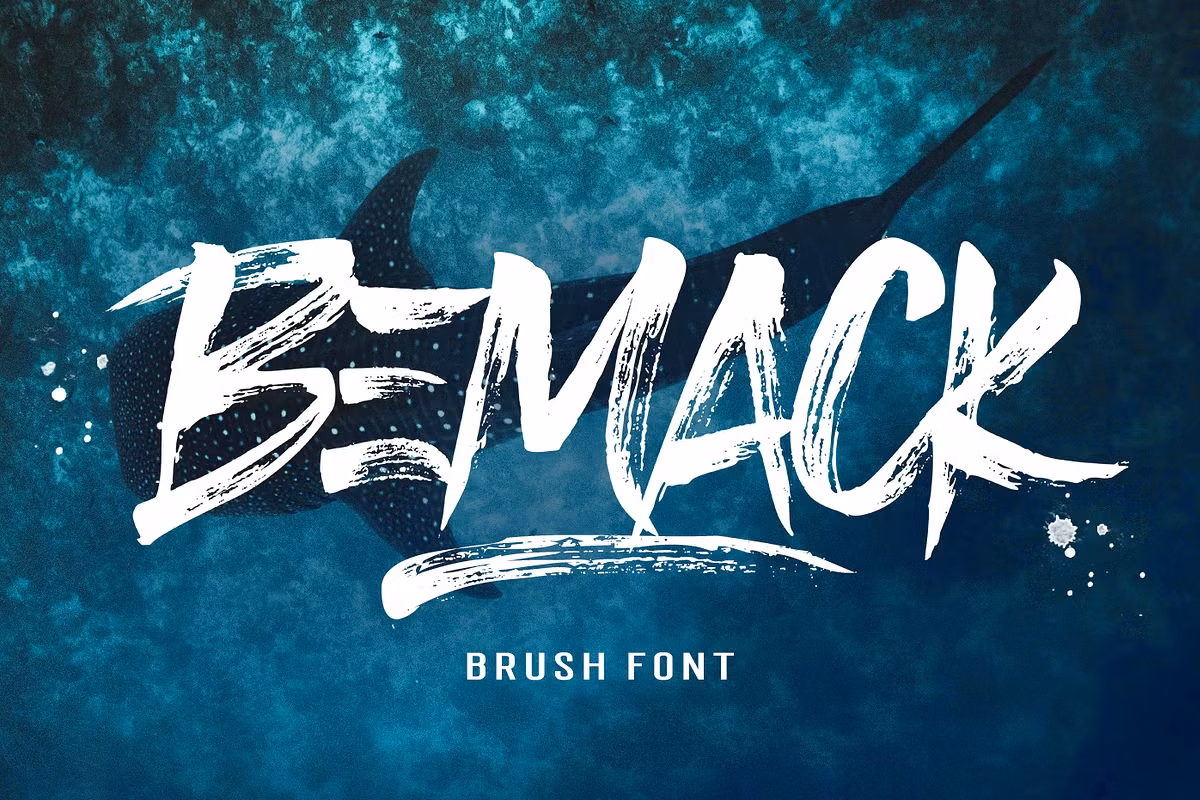
Bemack Brush Font Free Download
You must purchase this font for commercial use. However, you can download Bemack Brush Font Free Download for testing purposes. Bemack is a bold and expressive brush font that combines the energy of hand-lettered typography with the smoothness of modern design. With its dynamic strokes and creative feel, this font is perfect for logos, posters, social media graphics, packaging, and any project that requires a personal yet powerful touch.
The rough brush texture of Bemack makes it ideal for projects that need a high-energy, artistic feel, such as creative brands, event promotions, and stylish designs that want to make a statement. Its versatility and bold design ensure that your text stands out with personality and flair.